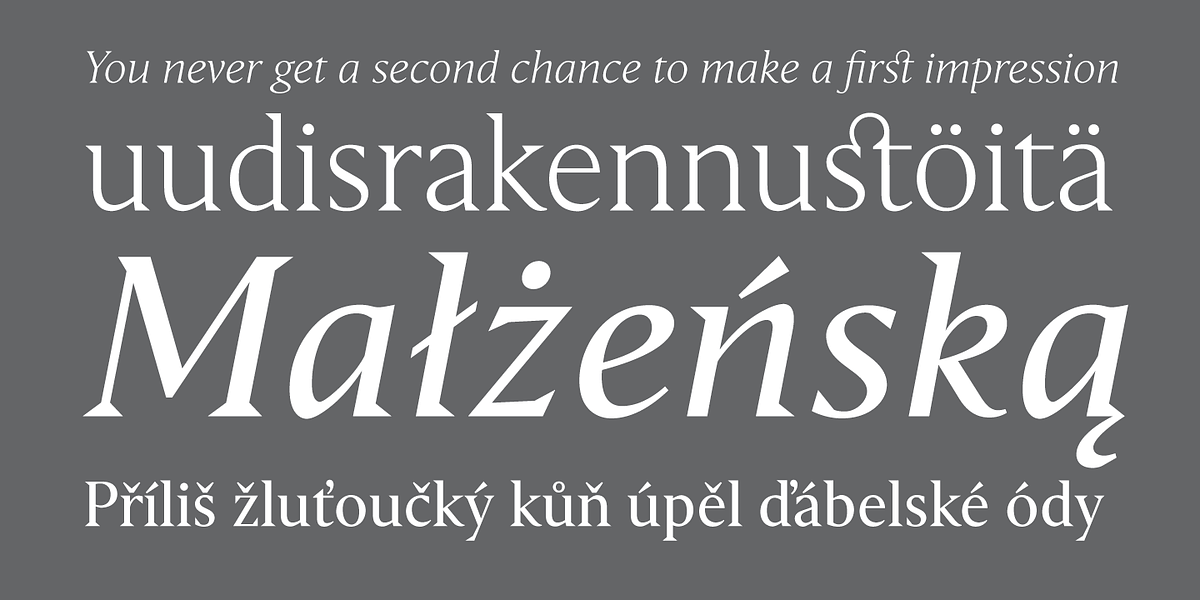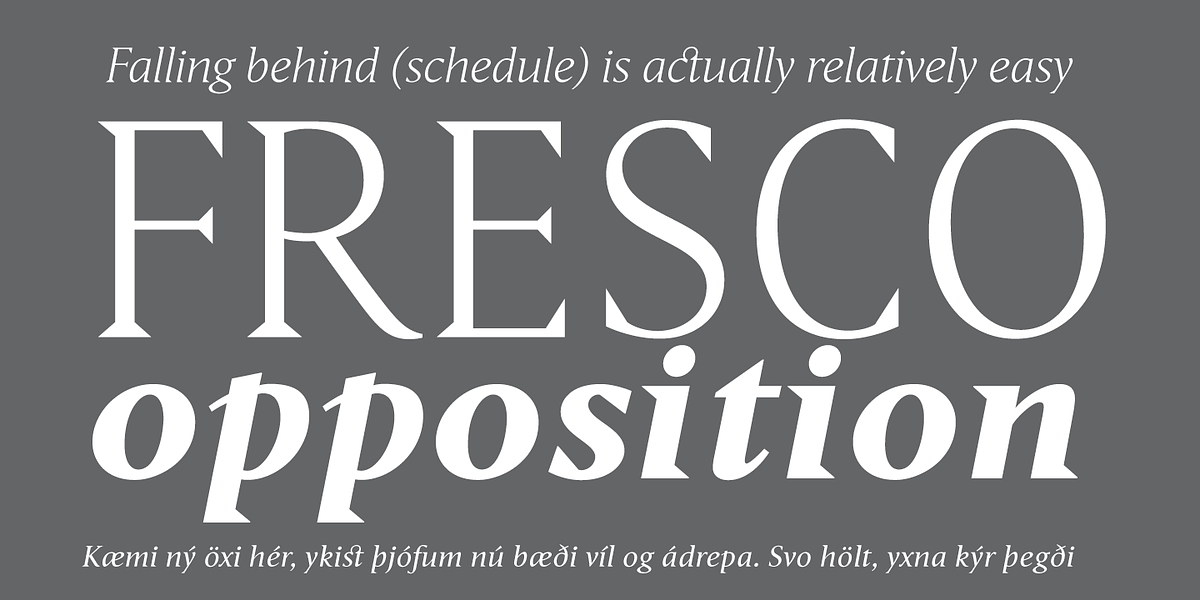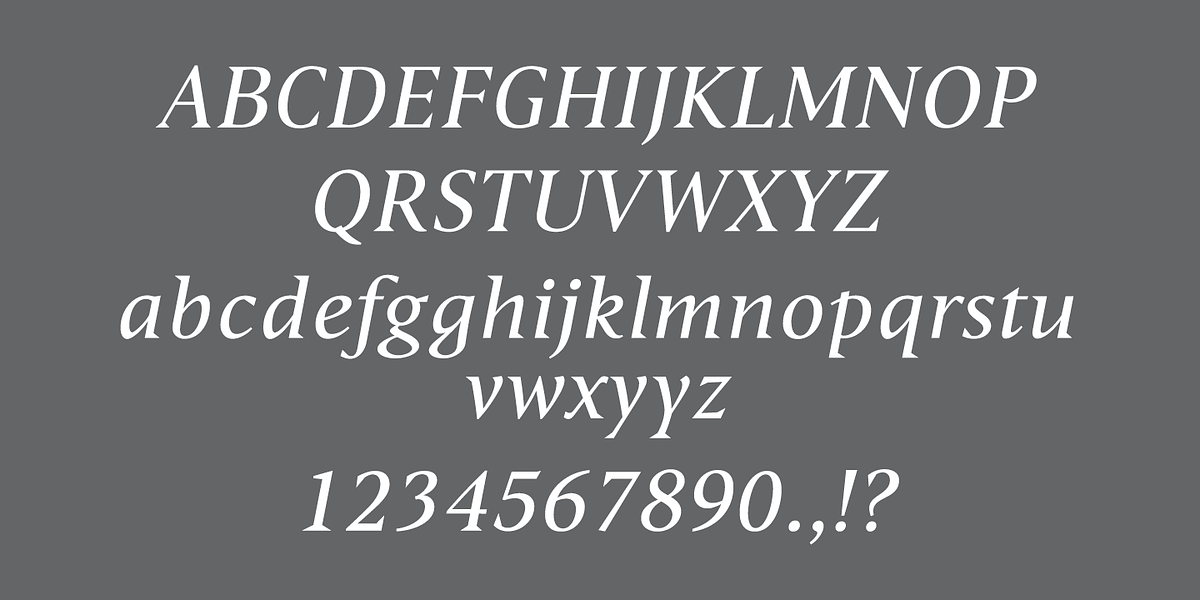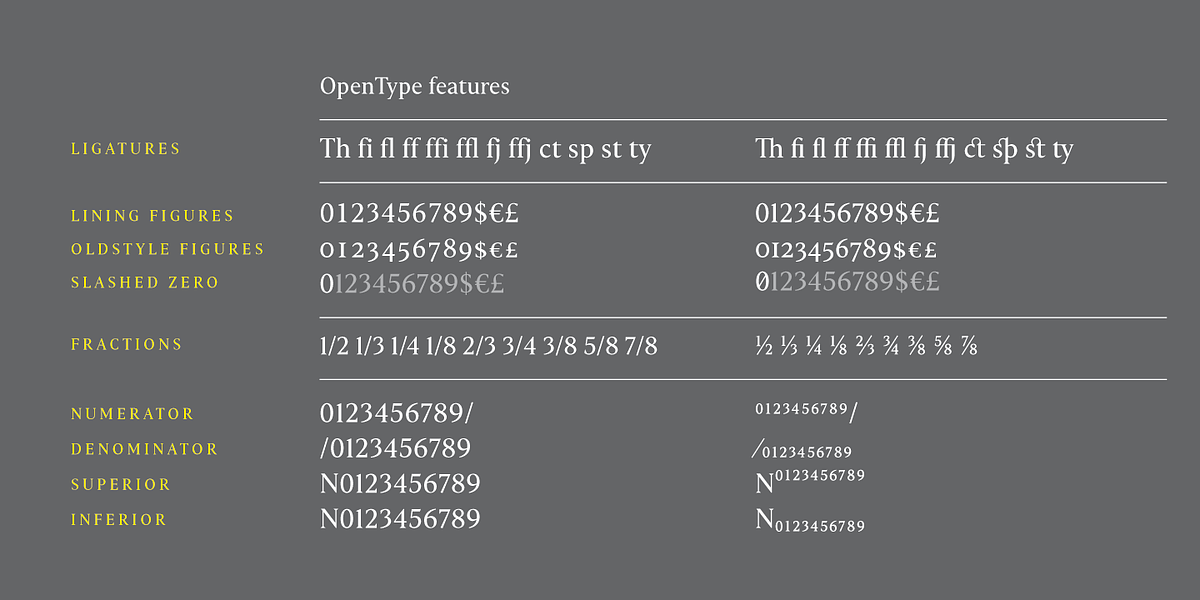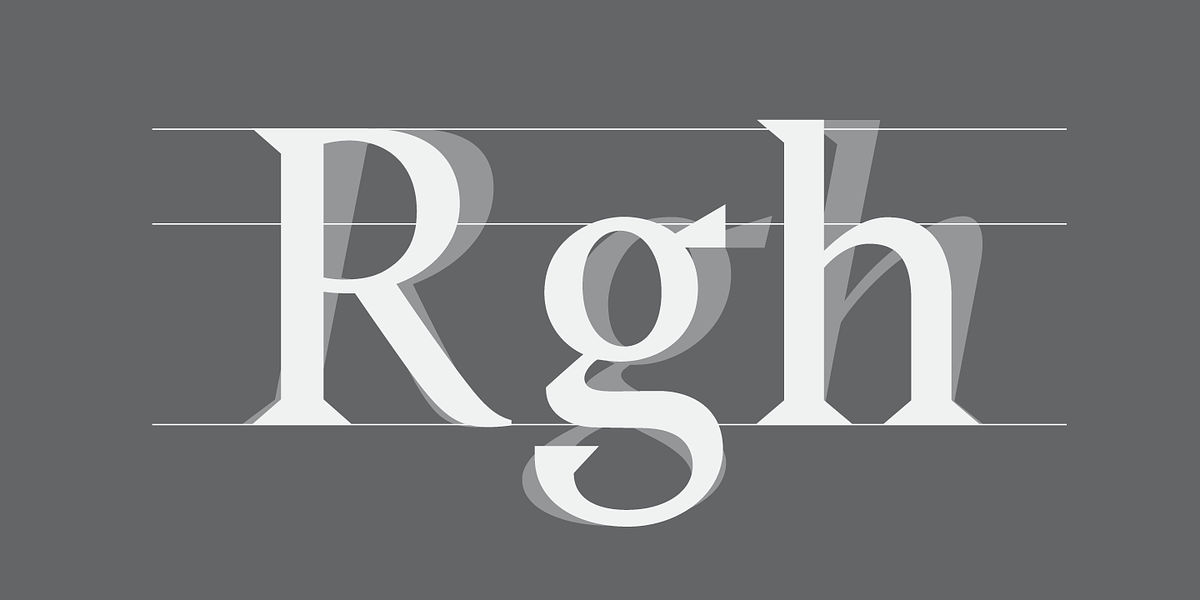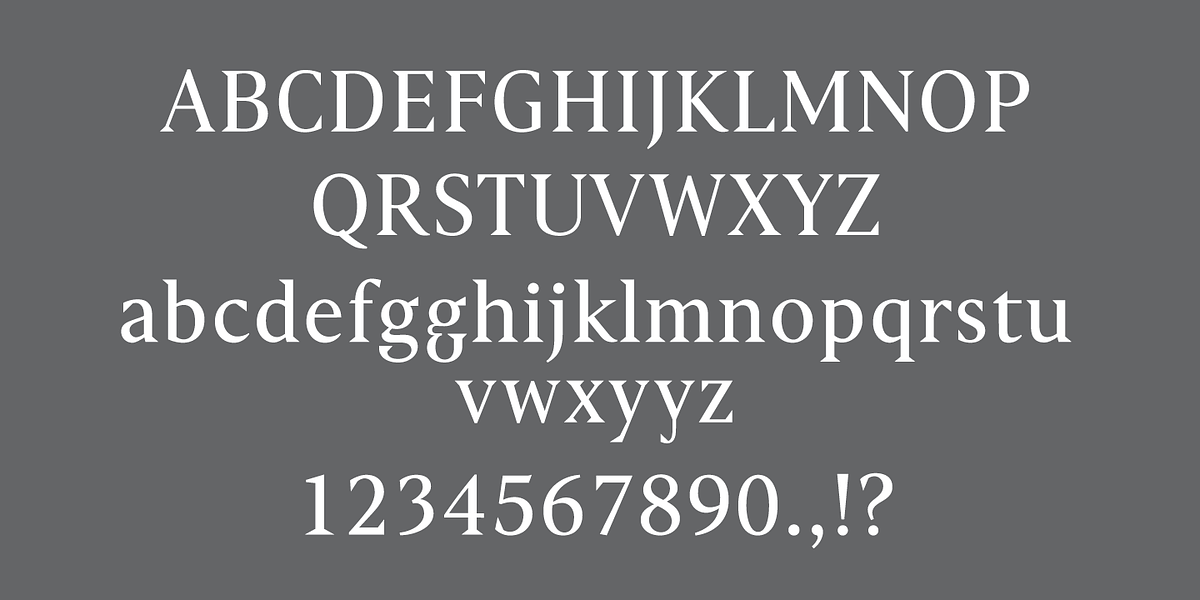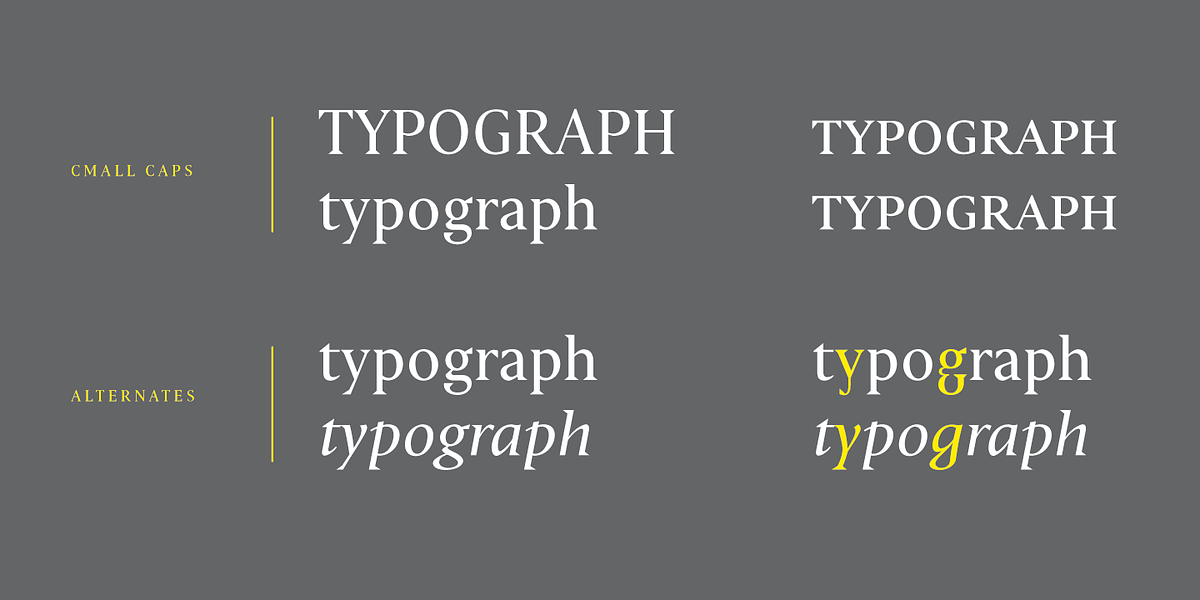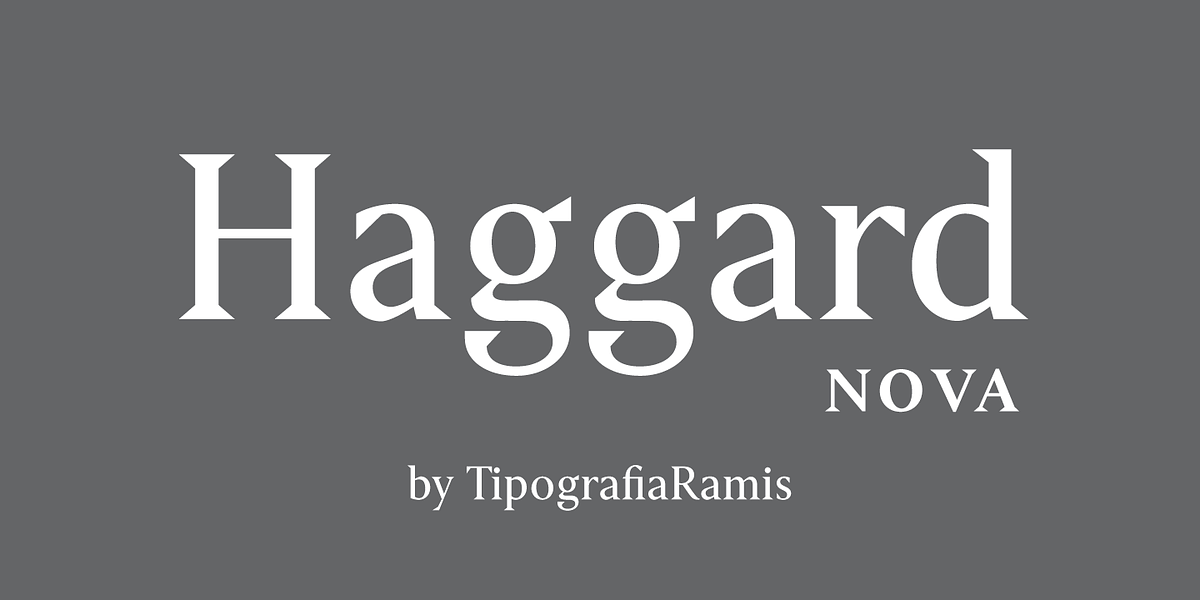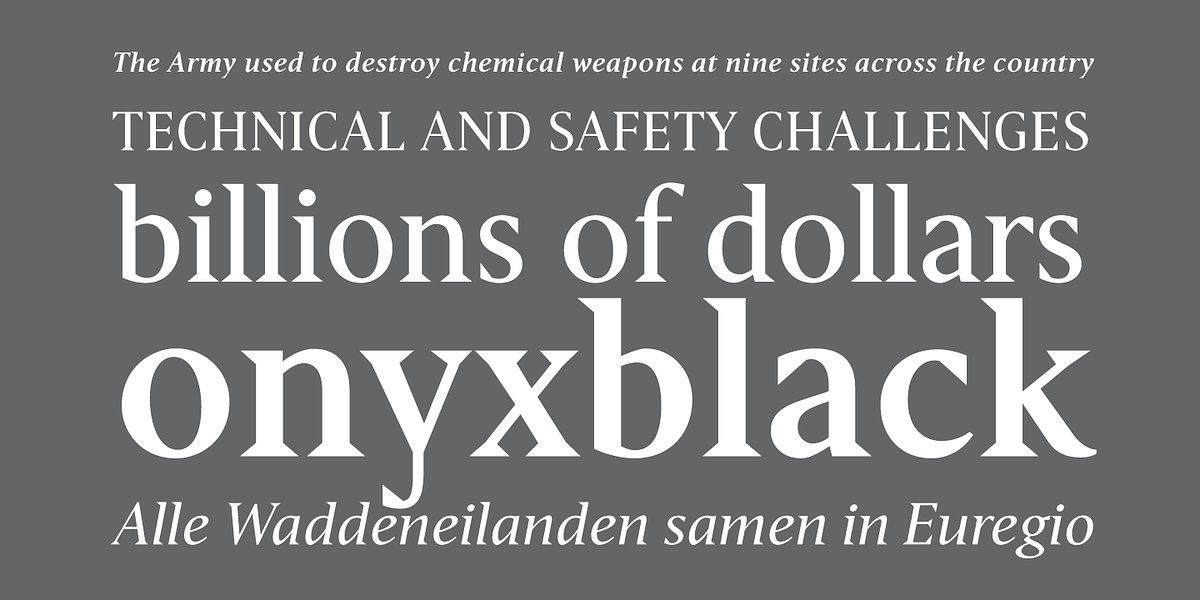
Haggard Nova
Haggard Nova is a modernized version of a classic wedge serif font. It boasts eight styles, including small caps and true italics, making it versatile for both body text and display purposes. The typeface supports multiple Latin languages due to an expanded glyph set.